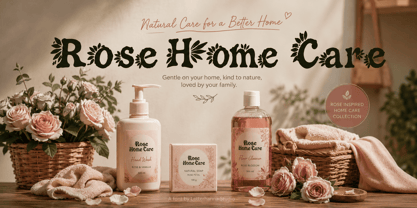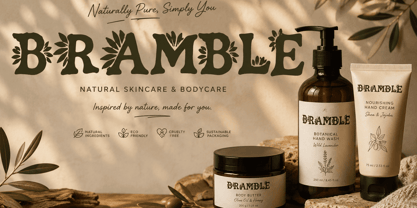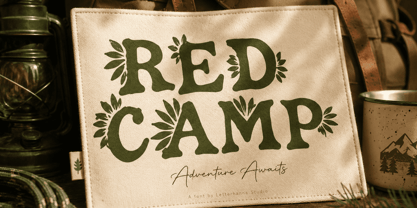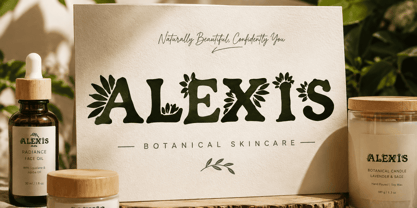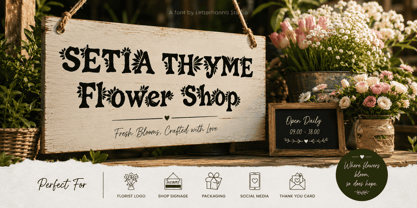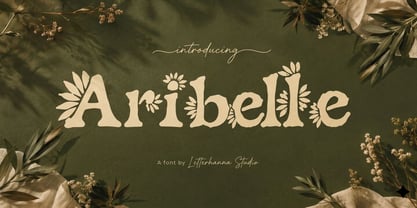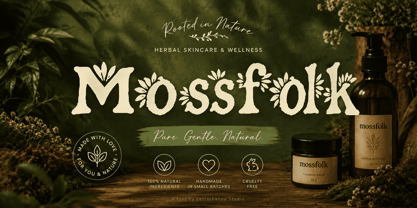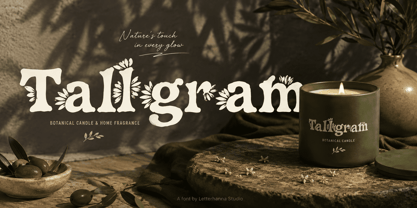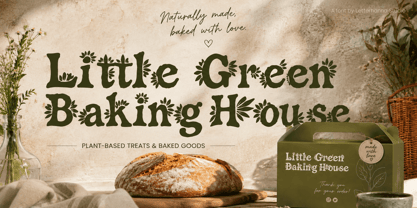
Aribelle
La famille de polices Aribelle a été conçue par Rinaldo Hasibuan et publiée par Letterhanna Studio. Aribelle contient 1 styles. En savoir plus sur cette famille
Some designs feel too ordinary because the lettering says the words, but adds no atmosphere. Aribelle changes that with a charming floral font that makes every letter feel like part of a hand-drawn garden.
Its bold, organic letterforms are surrounded by expressive leaves and flowers, creating a naturally decorative appearance. The slightly irregular shapes bring warmth and a handcrafted character, while the strong silhouettes keep the lettering highly visible.
Aribelle works beautifully for botanical packaging, greeting cards, stationery, posters, labels, book covers, craft branding, and creative product designs. Use it when a clean typeface feels too predictable and your composition needs more personality.
The real magic comes from the contrast: substantial lettering meets delicate botanical details. The result feels rustic yet playful, nostalgic yet fresh.
If your design needs lettering that feels like it was discovered in an old illustrated garden book, Aribelle is ready to bloom.